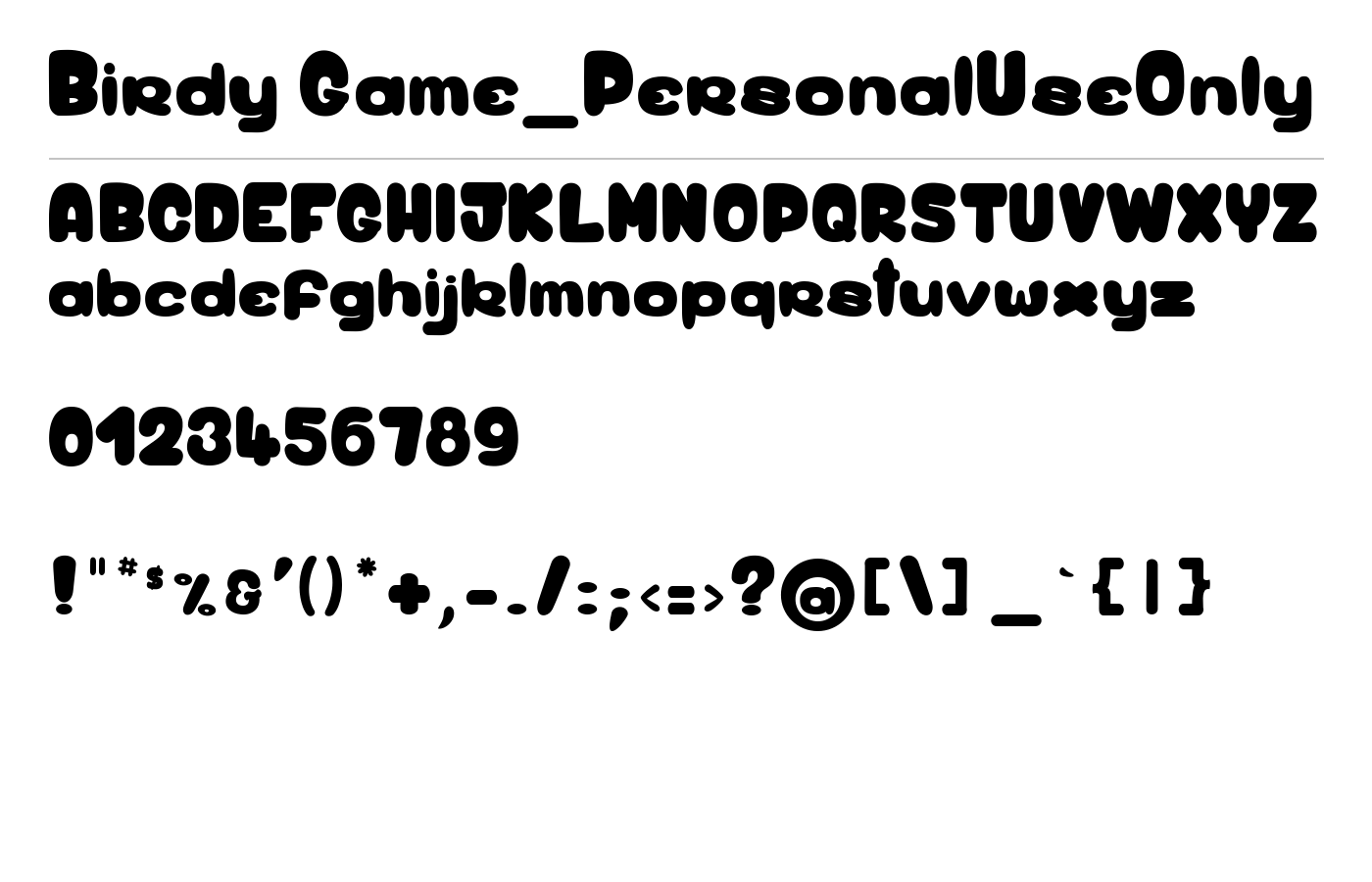
Birdy Game_PersonalUseOnly is a bold, rounded sans serif font with a playful and friendly personality. Its thick, soft letterforms and high x-height make it easy to read while conveying a casual, fun vibe, ideal for children's content, informal branding, or creative projects that want a warm and approachable look. This font works best in headlines, logos, and packaging where a lighthearted and inviting tone is desired.
About Birdy Game_PersonalUseOnly Font